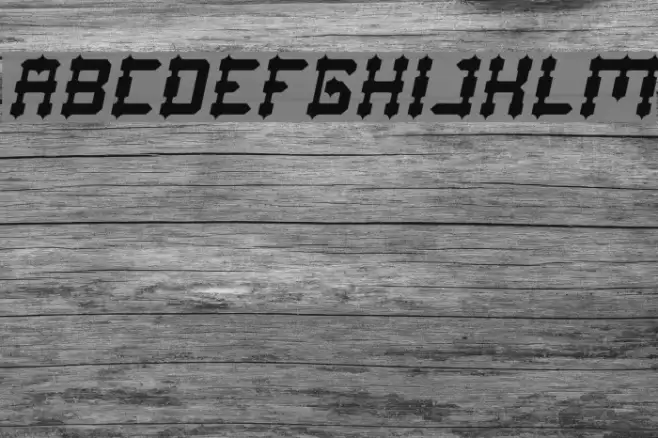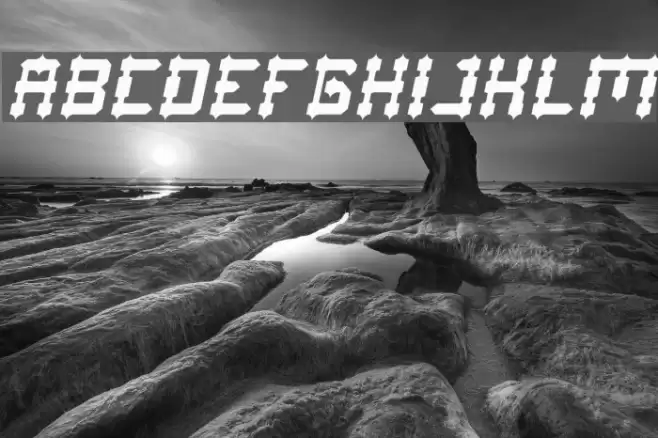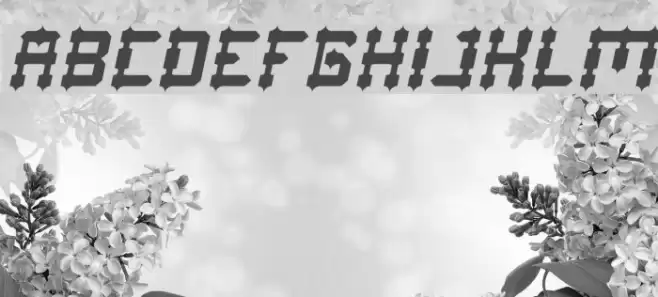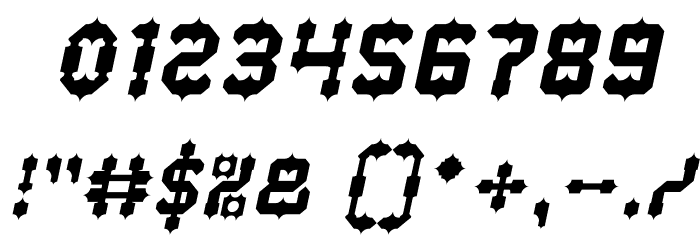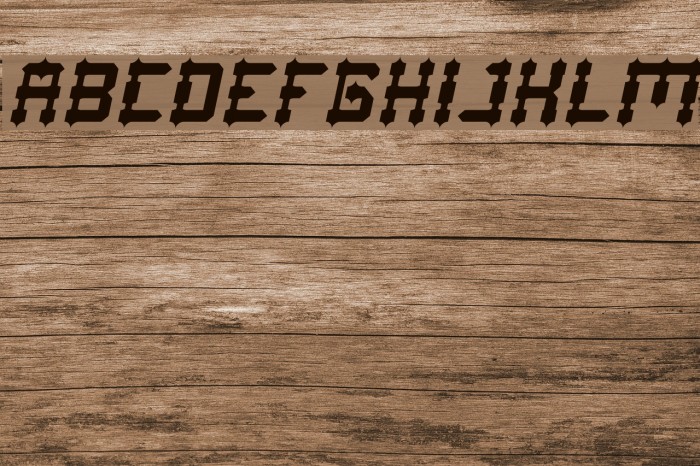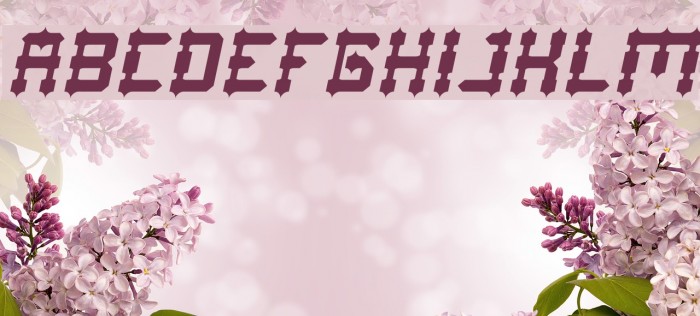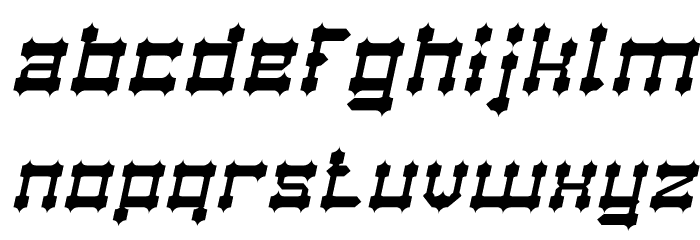
Drako Heart Italic Font
Drako Heart Italic Description
This font features a bold, angular design with sharp, jagged edges that give it a distinctive, edgy appearance. The characters are italicized, adding a dynamic and forward-leaning aspect to the overall style. The uppercase and lowercase letters maintain a consistent height and width, creating a uniform look across the text. The numbers and special characters follow the same design principles, ensuring cohesion throughout. The font's unique style makes it stand out, with a high contrast between the thick and thin strokes, enhancing its boldness and visibility.
A bold, angular, and italicized font with sharp edges and high contrast from Uncategorized fonts.
- Proposed Projects: Ideal for projects that require a striking and edgy look, such as band logos, video game titles, or poster designs.
- Overall Style: Modern, Edgy